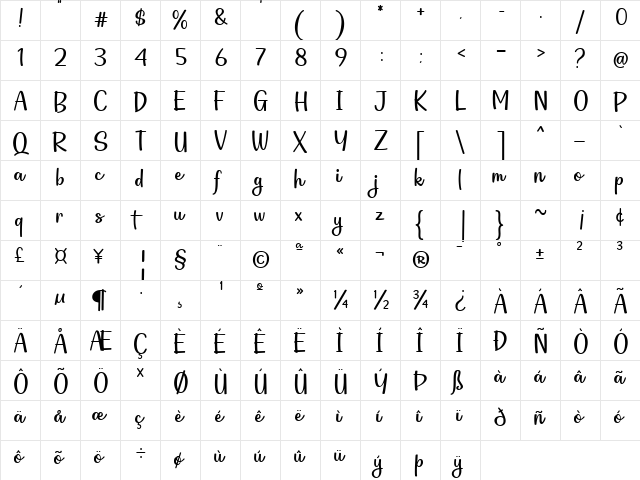
Astronauta Script Regular
Design Context for Astronauta Script Typeface
Astronauta Script flows with the natural rhythm of handwritten lettering, making it ideal for designs that call for warmth and personal expression.
Font Pairing: Combine Astronauta Script with a simple geometric sans for maximum contrast — the tension between flowing curves and clean structure is a classic typographic pairing.
Pro Tip: Use Astronauta Script for short runs of text — names, titles, or taglines. Extended body copy in script faces tires the eye quickly.